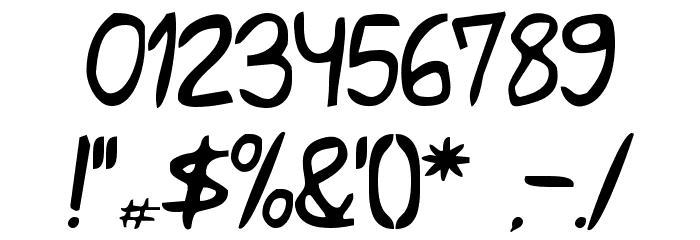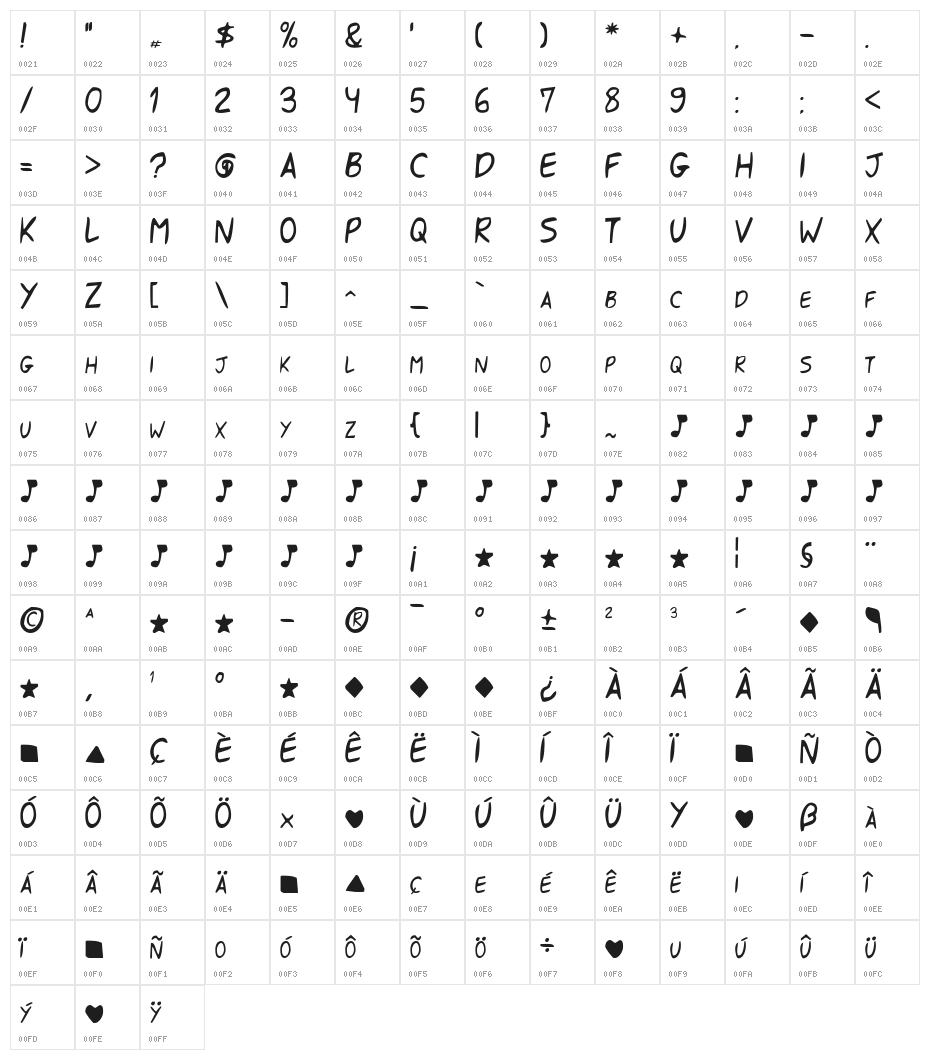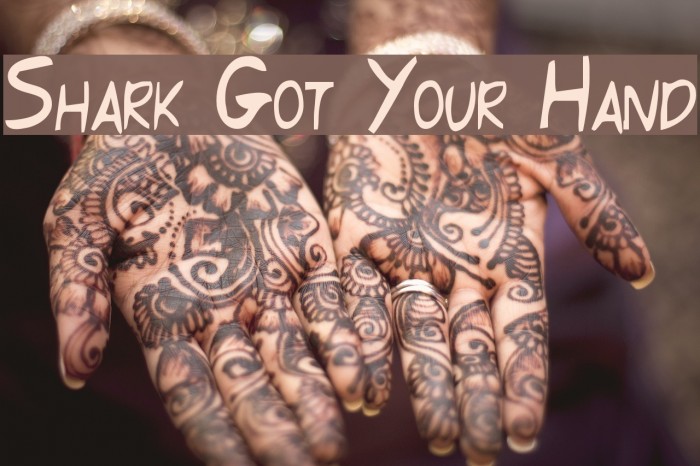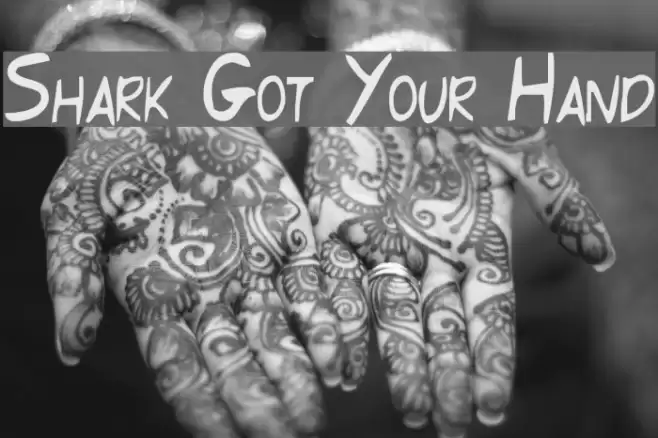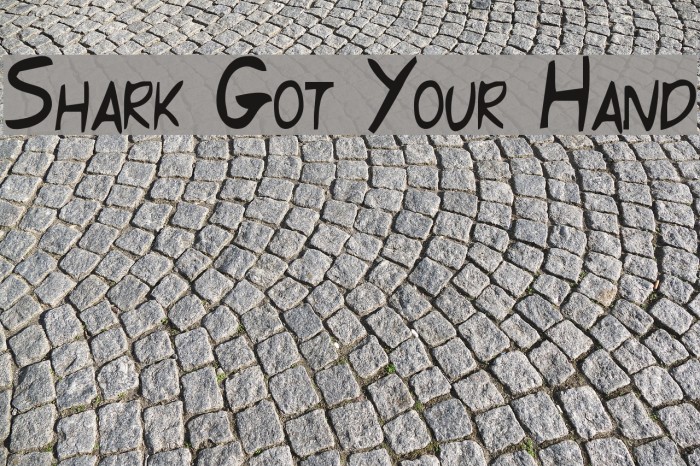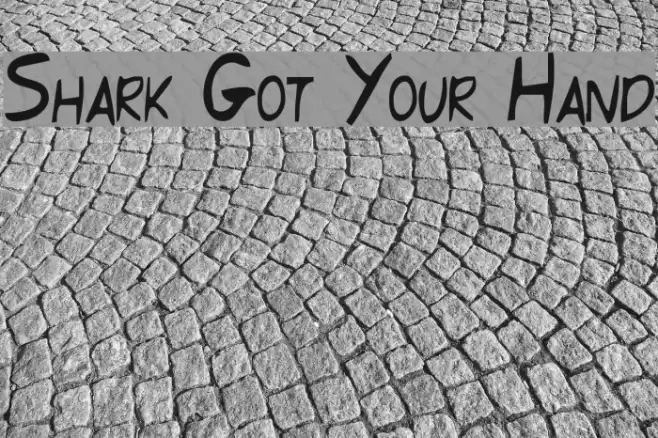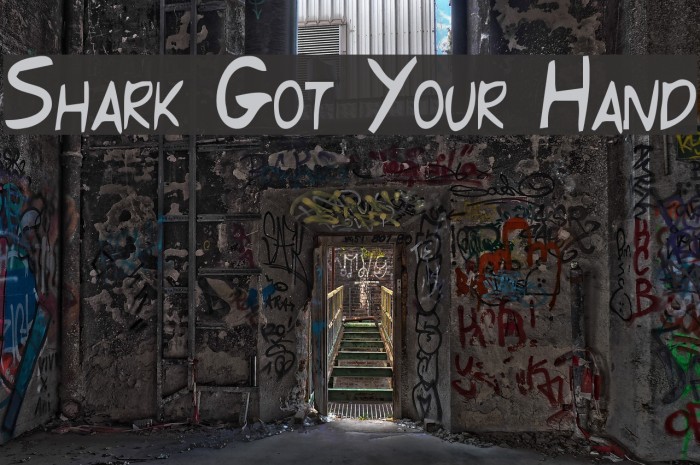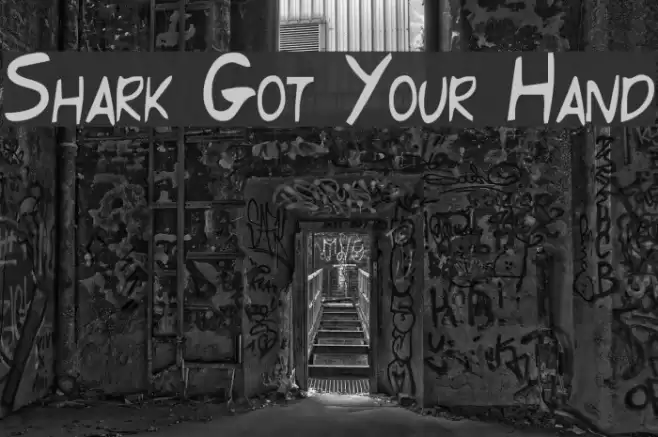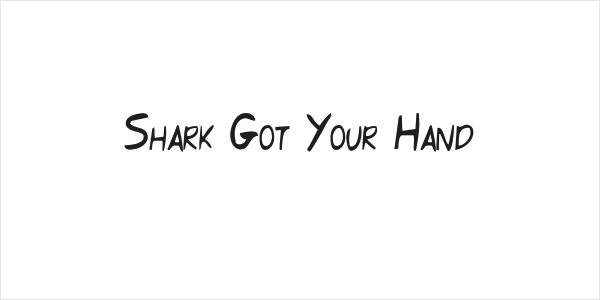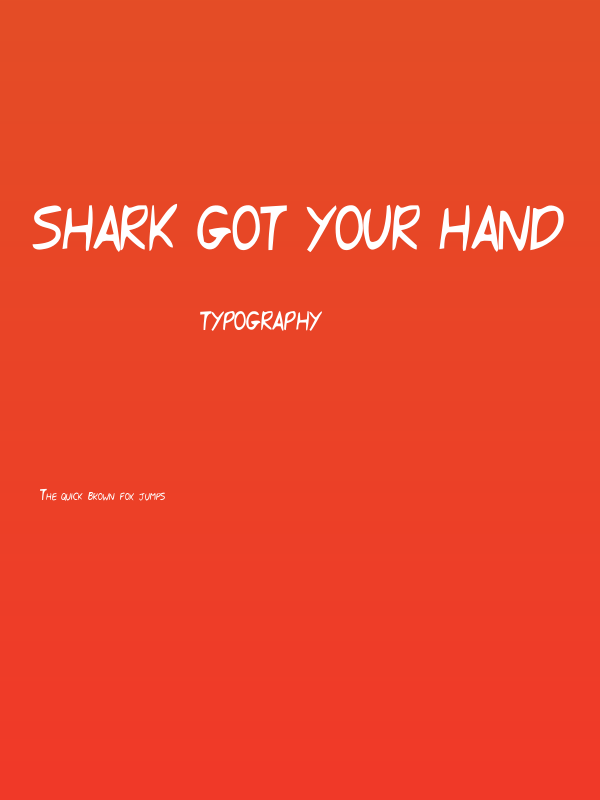
Shark Got Your Hand Font
Shark Got Your Hand Description
This font features a playful and dynamic style, characterized by its bold and slightly irregular strokes. The letters have a hand-drawn appearance, giving them a casual and informal feel. The uppercase and lowercase letters maintain a consistent style, with rounded edges and varying stroke widths that add to the font's lively personality. The numbers and special characters follow the same design principles, ensuring a cohesive look across all glyphs. This font is well-suited for projects that require a fun and approachable aesthetic.
| Proposed Projects | Ideal for children's books, comic strips, playful branding, and casual invitations. |